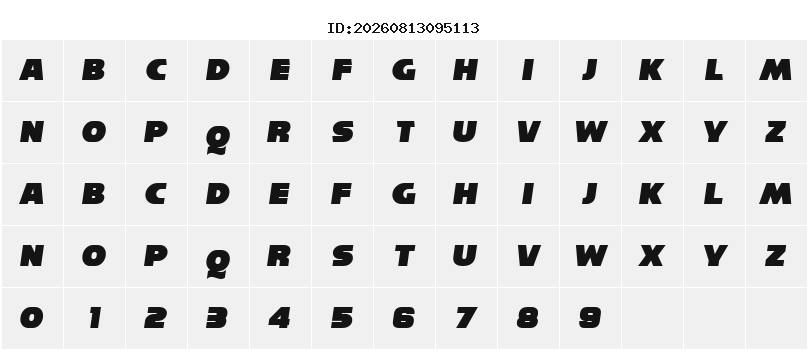
Reisenberg Preview
• Font Name: Reisenberg
• Font ID: Reisenberg Italic:Version 1.00
• Full Font Name: Reisenberg Italic
• Version: Version 1.00 December 14, 2015, initial release
• PostScript Name: Reisenberg-Italic
• Character Count: 238
About Reisenberg.otf
Reisenberg.otf is a modern, elegant sans-serif font designed for ultimate readability and visual harmony. Perfect for branding, headlines, web design, and print materials.